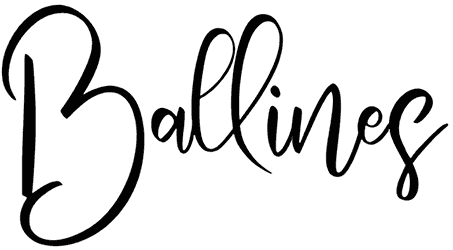
Ballines Font
If you are into romance layouts, this classic option will attract you. As a handwritten font, Ballines with natural pen lettering can be harmonized with any modern or vintage design. This script font looks attractive on…
If you are into romance layouts, this classic option will attract you. As a handwritten font, Ballines with natural pen lettering can be harmonized with any modern or vintage design. This script font looks attractive on many innovative projects, such as greeting cards, planners, invitations, or whatnot, and can give them a lovely face.